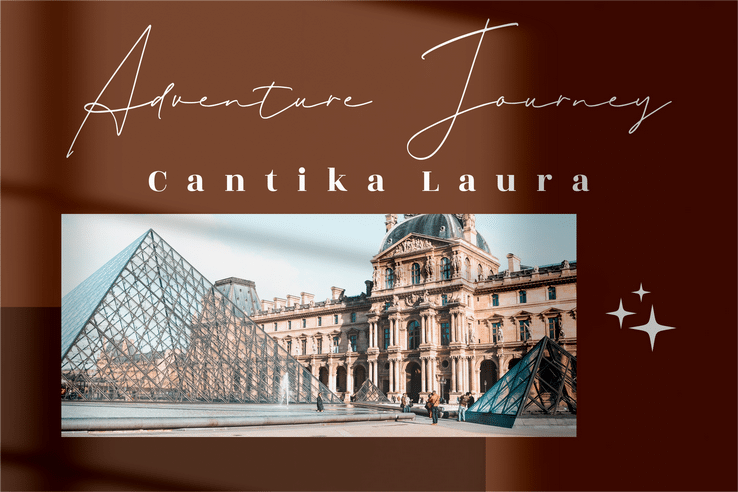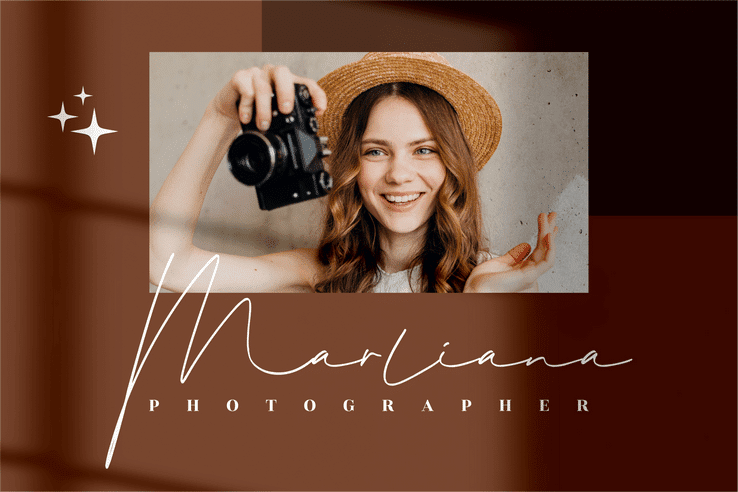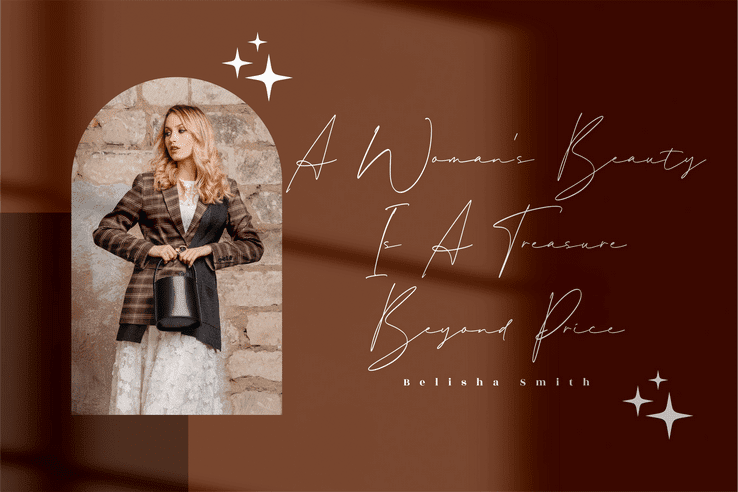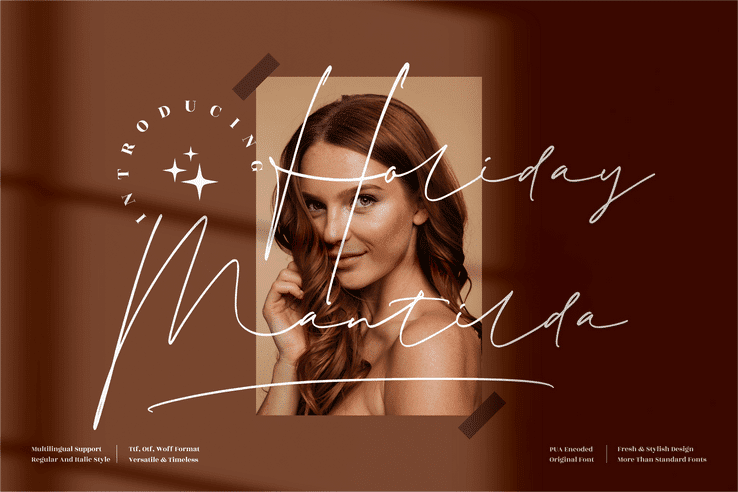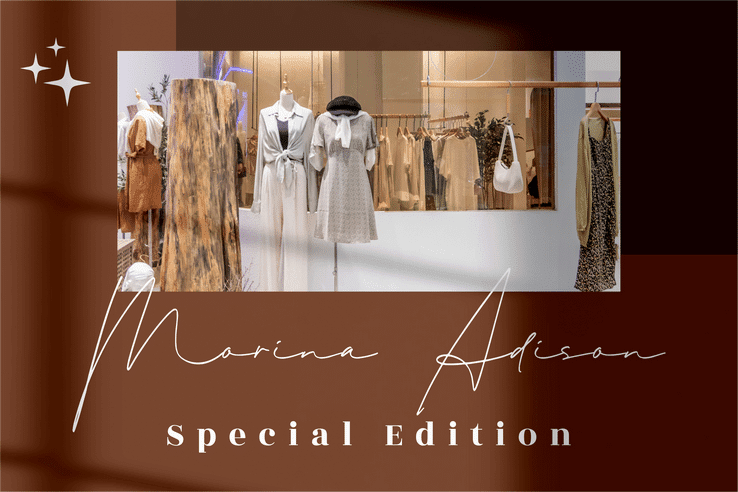
Holiday Mantilda Signature Font
Holiday Mantilda Signature Font. This font is suitable for any projects such as logos, branding projects, homeware designs, product packaging, mugs, quotes, posters, shopping bags, t-shirts, book covers, name card, invitation cards, greeting cards, label, photography, watermark, special events, and all your other luxury projects that need a premium signature taste.